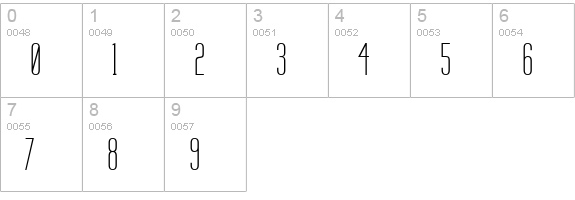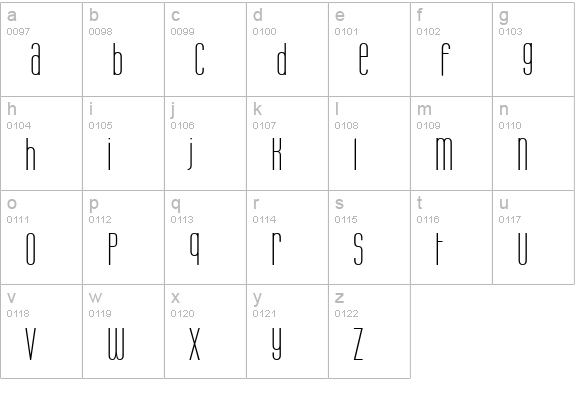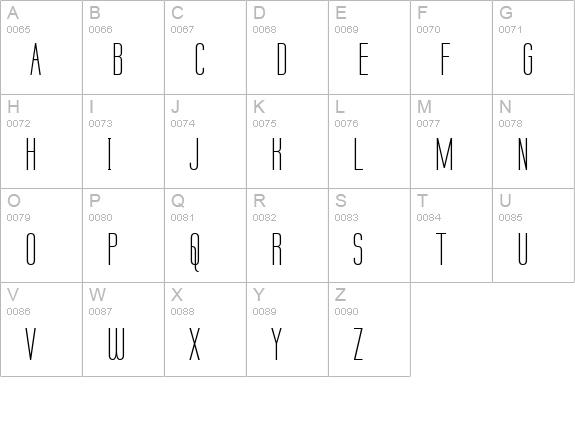
Introducing Labtop Unicase font, a versatile and modern typeface that is perfect for a wide range of design projects. With its clean lines and unique character shapes, Labtop Unicase is sure to make your designs stand out. Whether you are creating branding materials, posters, or web designs, this font is a great choice. What makes Labtop Unicase even more appealing is that it is available for free download at FontsMarket.com. This means that you can easily access this high-quality font without any cost. Don't miss out on the opportunity to enhance your design projects with the elegance and sophistication of Labtop Unicase font. Download it today and elevate your designs to the next level.